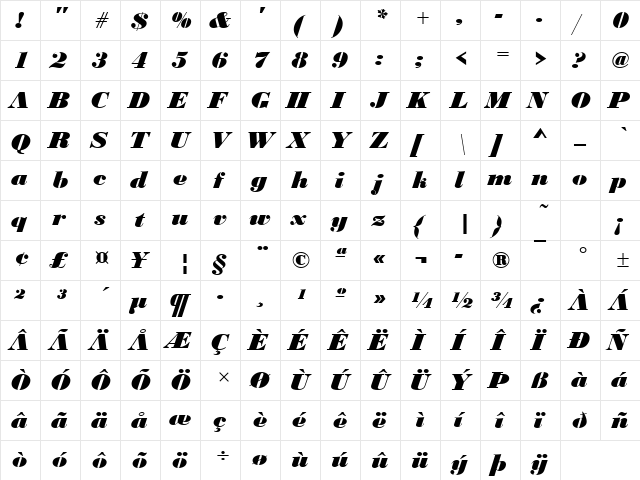
Bodoni Becker Black Italic
Design Context for Bodoni Becker Black Typeface
Bodoni Becker Black is a composed and adaptable typeface that performs quietly and consistently across a wide range of design contexts. The dynamic lean of this cut emphasises speed and emphasis in any layout.
Pro Tip: Use Bodoni Becker Black for emphasis, pull quotes, and subheadings where its slanted energy can add rhythm to the layout.